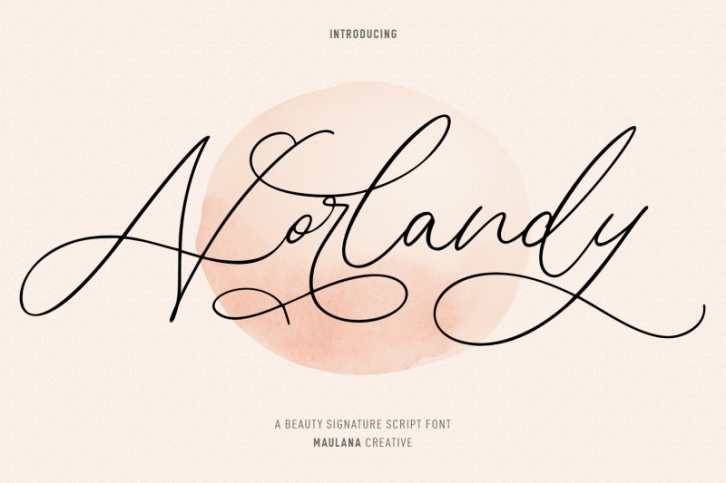
Norlandy Beauty Script Font Download
Norlandy is a beauty signature script font. With thin tall contrast stroke, fun character with a bit of ligatures and stylistic alternates. To give you an extra creative work. Norlandy font support multilingual more than 100+ language. This font is good for logo design, Social media, Movie Titles, Books Titles, a short text even a long text letter and good for your secondary text font with sans or serif. Make a stunning work with Norlandy font.